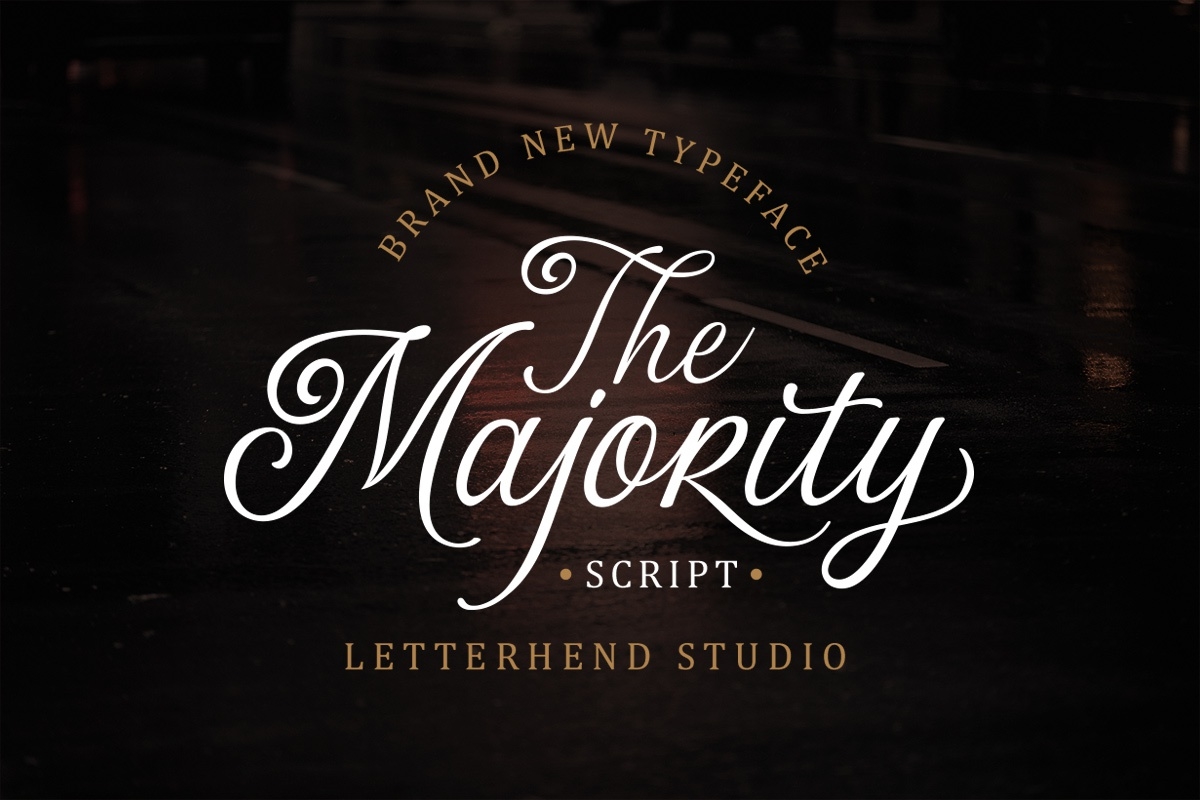
The Majority Font
The Majority Font is perfect for democratic organization branding, voting system interfaces, political campaign materials, civic engagement platforms, community consensus building graphics, public opinion survey presentations, majority rule documentation, electoral process signage, democratic institution communications, and citizen participation program materials. This authoritative typeface brings democratic credibility to voting technology companies, civic education organizations, political research institutions, community engagement platforms, and democratic governance systems.
The Majority Font is exciting because it embodies the fundamental principles of democratic consensus and collective decision-making through its solidly constructed letterforms that convey unity and representative authority. The font features strong, inclusive characters with democratic proportions and collective details that evoke the power of majority decisions, the strength of unified voices, and the authority that comes from widespread agreement and popular support. Its distinctive construction demonstrates democratic integrity with carefully balanced elements that create an immediate sense of collective strength and representative legitimacy. The font's democratic presence and majority authenticity make it perfect for organizations seeking to communicate popular support, collective decision-making, and democratic authority in their visual communications.
The Majority Font family includes various democratic styles: Light, Regular, Medium, Bold, Black, Italic, Condensed, Extended, Display, Democratic, Consensus, and Unity variants. Each family member maintains the core majority DNA while offering different levels of authority for diverse democratic design applications. The comprehensive font collection ensures consistent democratic branding across political campaigns, civic engagement materials, and collective decision-making communications.
Whether you're creating democratic organization brand identities, designing political campaign materials, developing civic website headers, or crafting community engagement promotional campaigns, The Majority Font delivers outstanding democratic appeal and collective authenticity. The font's distinctive unified personality excels in democratic logos, political packaging design, civic applications, and community projects where majority consensus and democratic representation are essential.